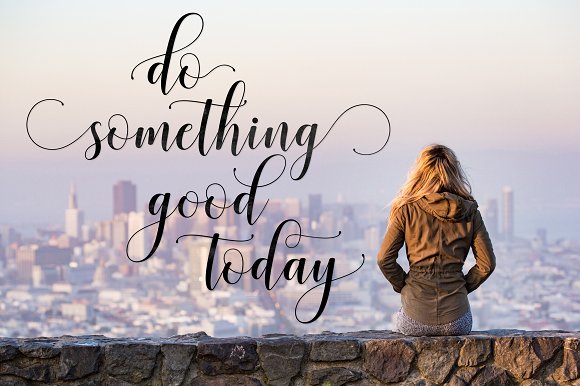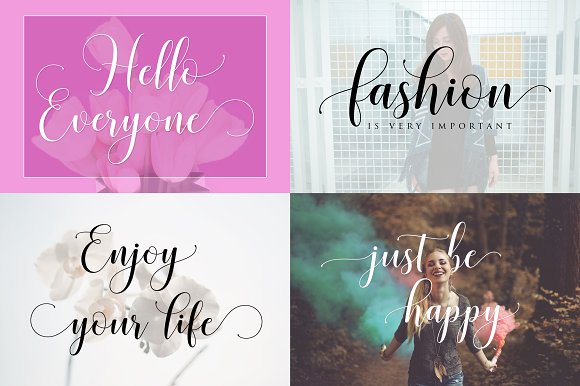
Introduction to Honilad Font
Honilad is a unique blend of classic & modern design.
It features imperfect strokes to create a naturally feeling font It’s great for many different styles of design.
Key Features of Honilad Font
Why Choose Honilad Font?
Honilad Font offers exceptional quality and versatility, making it a valuable addition to your design toolkit. Whether you’re creating for personal projects or commercial use, Honilad Font delivers professional results.